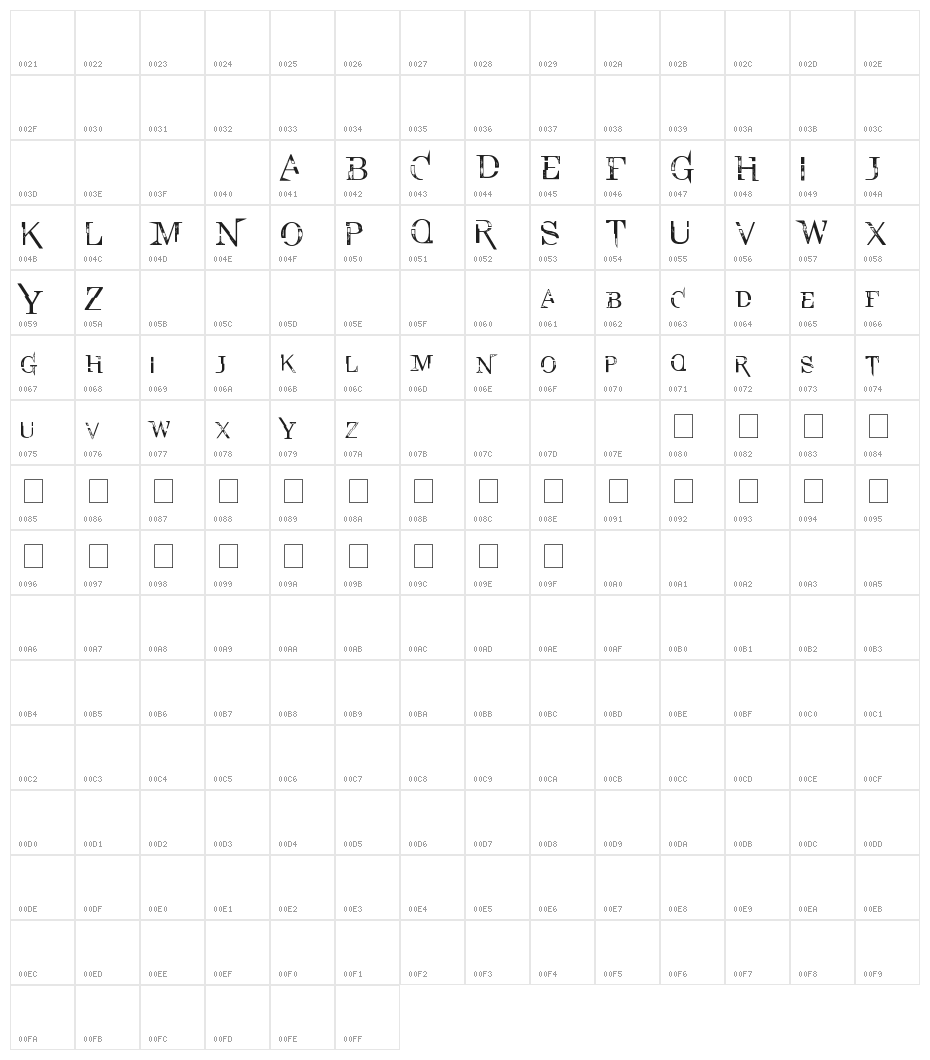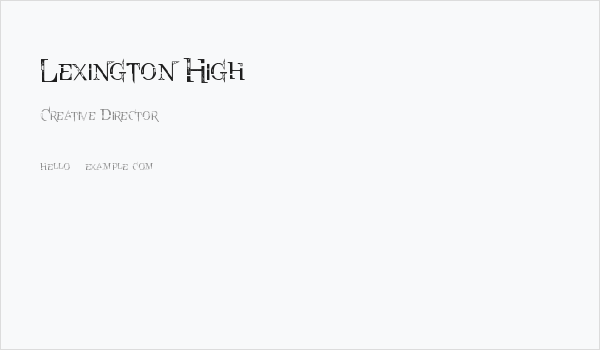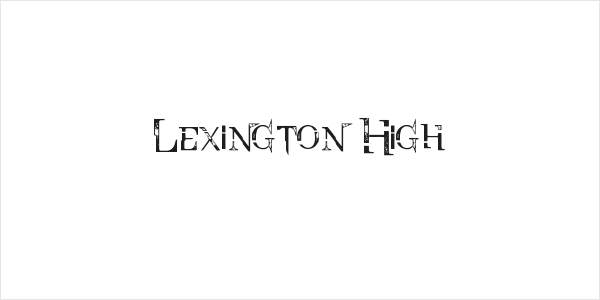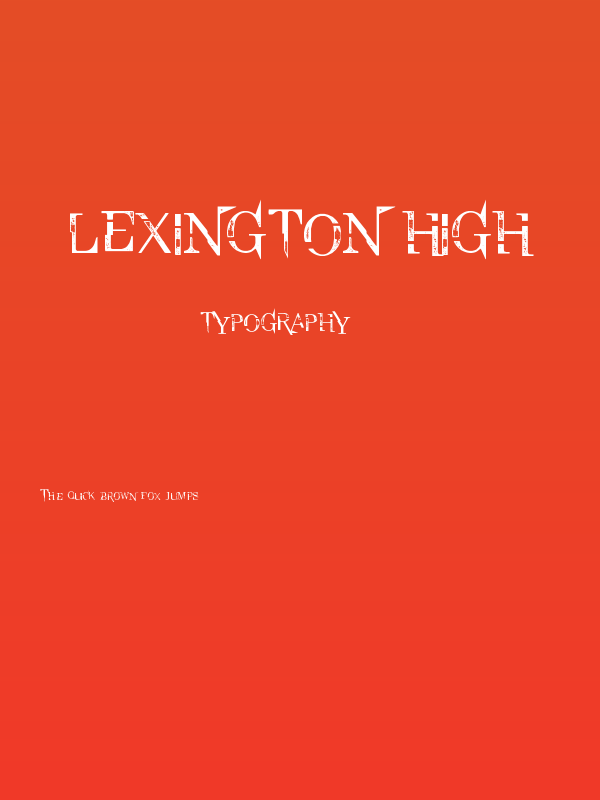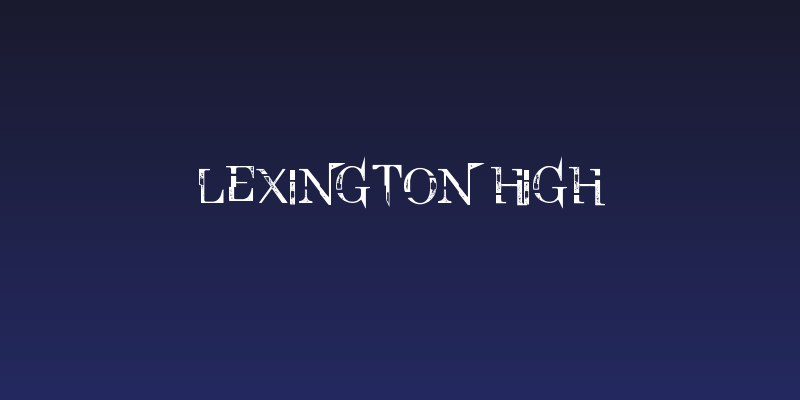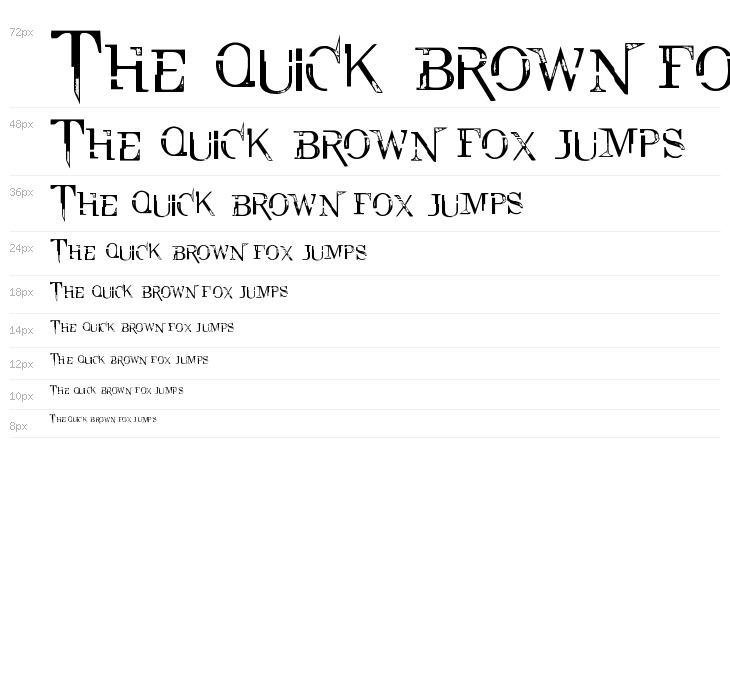
Lexington High Font
Lexington High Description
This font features a bold and decorative style with a distressed, grunge-like texture. The uppercase letters are characterized by sharp angles and unique cutouts, giving it a rugged and edgy appearance. The design incorporates elements of both modern and vintage aesthetics, making it versatile for various creative projects. The font's distinct look is achieved through irregular patterns and textures within each character, adding depth and visual interest. Its bold presence makes it suitable for attention-grabbing headlines and artistic designs.
| Proposed Projects | Ideal for posters, album covers, branding, and any project requiring a bold, artistic touch. |